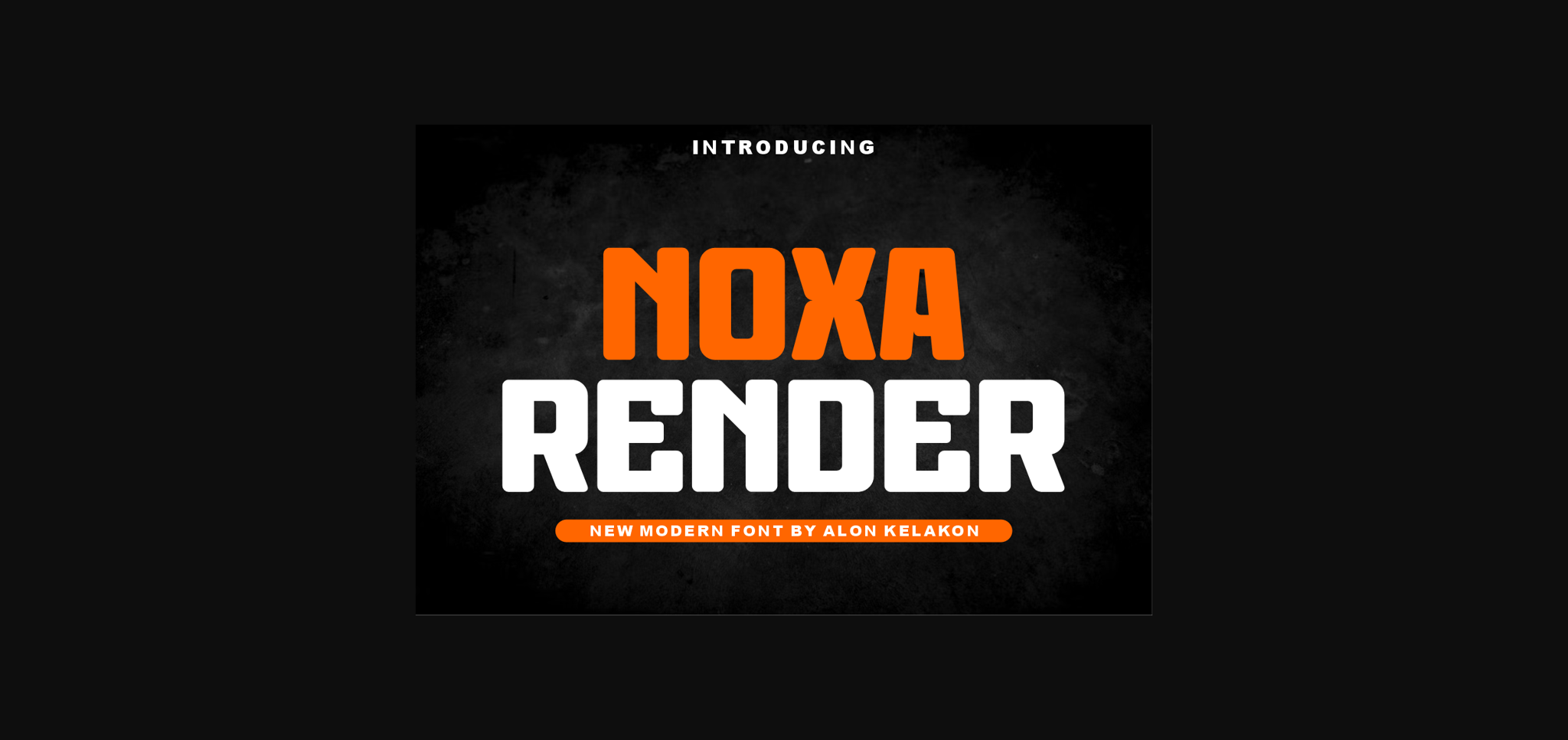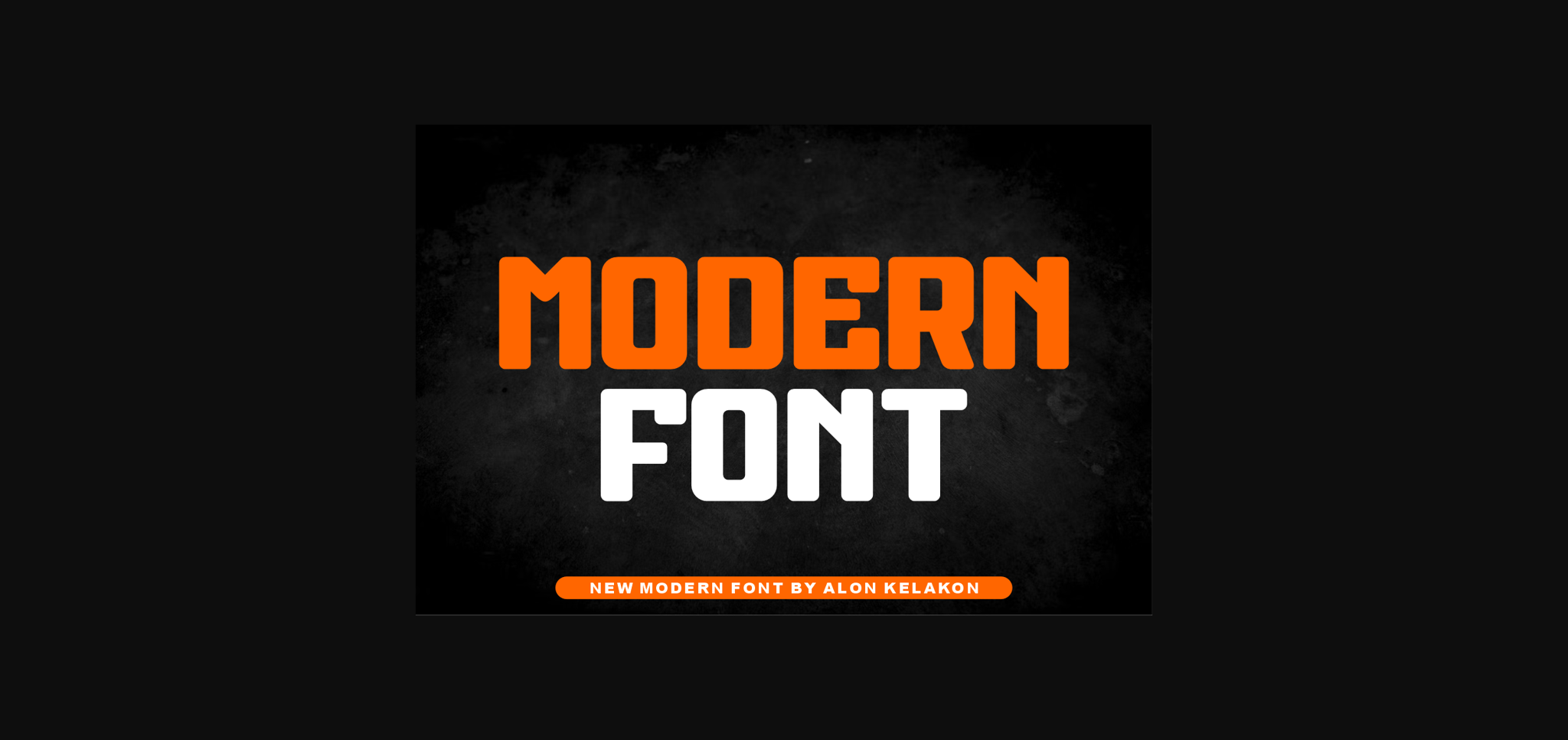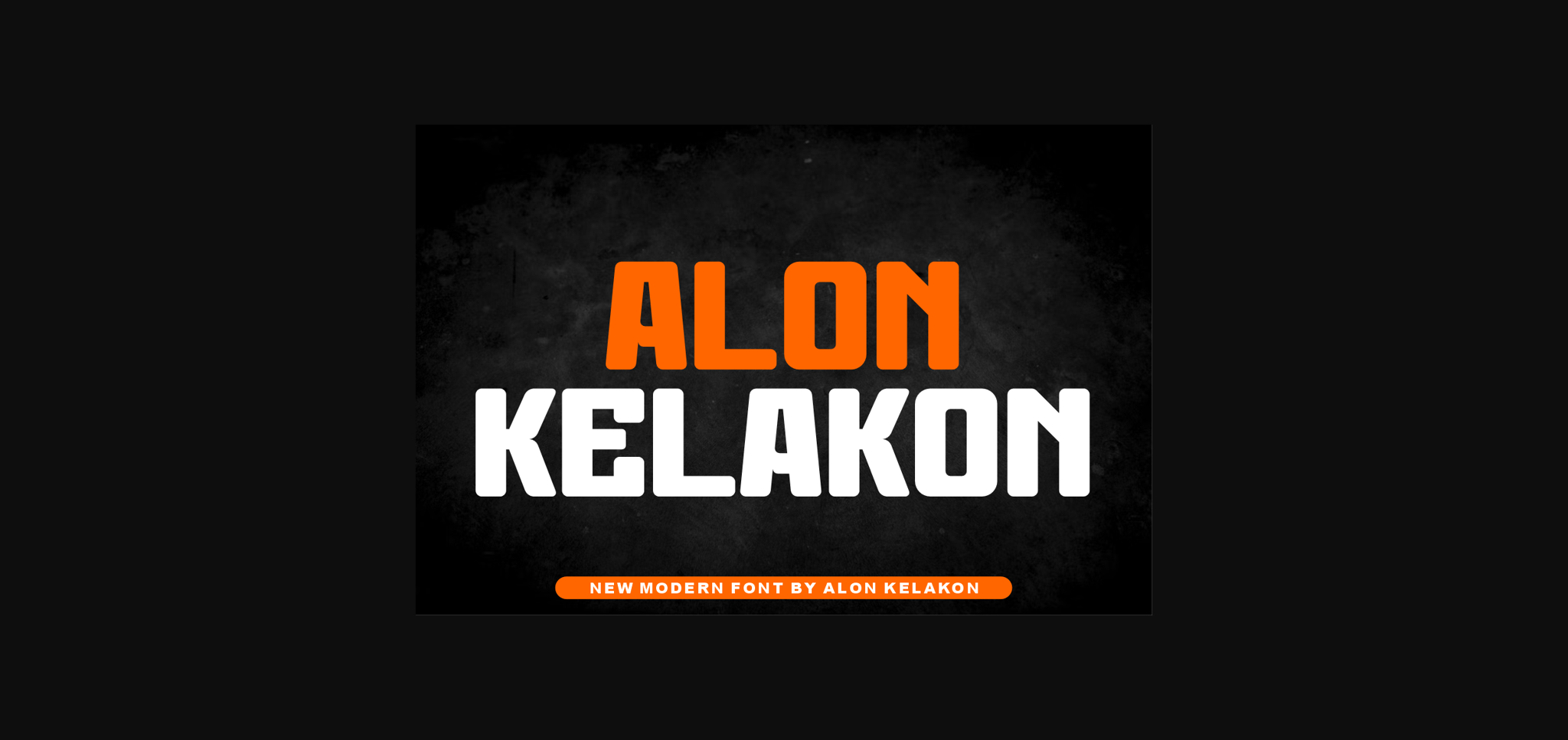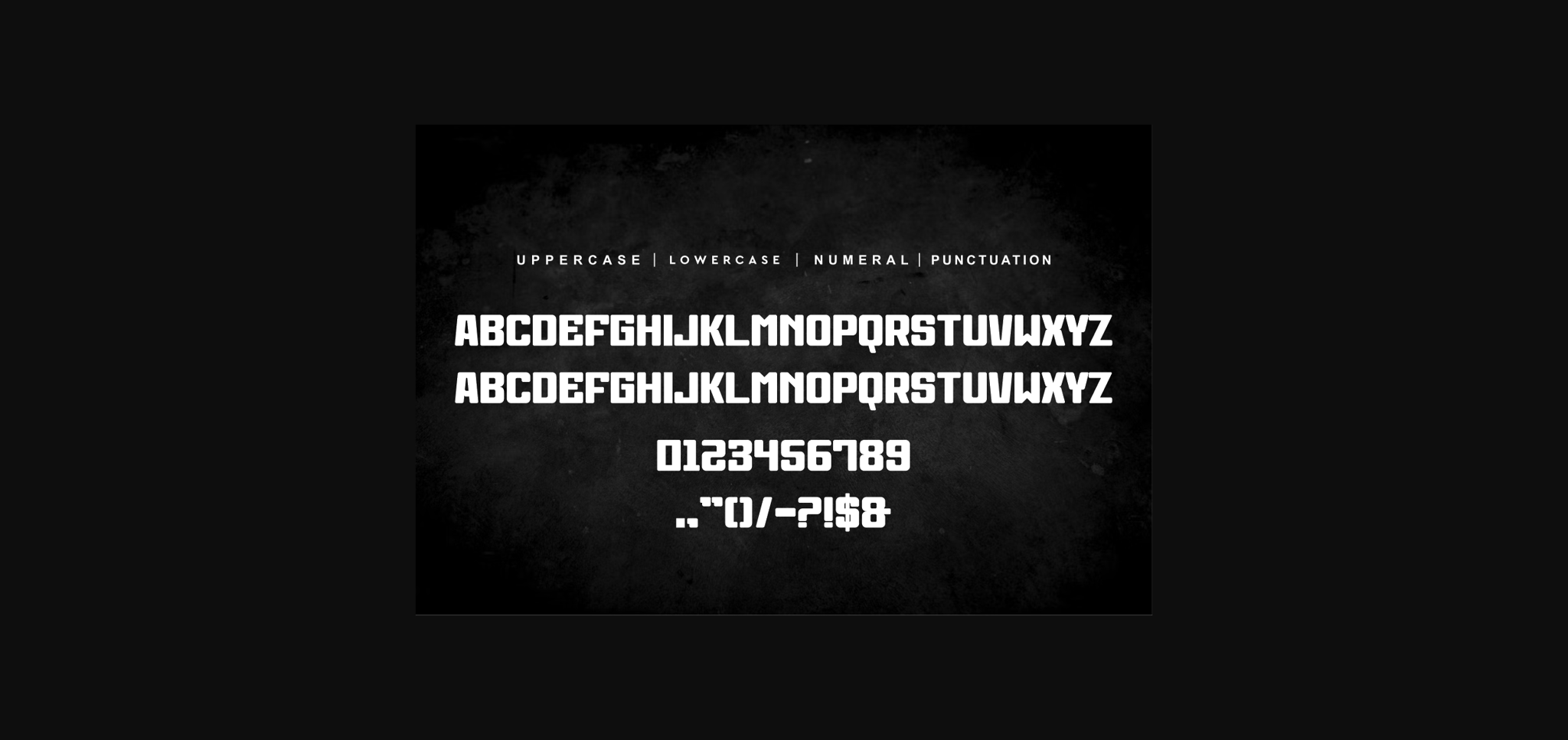
About Noxa Render Font
Noxa Render is a bold and unique sans serif font, ready to use for labeling, clothing, movie scenes, posters, movie titles, gigs, album covers, logos, and much more.